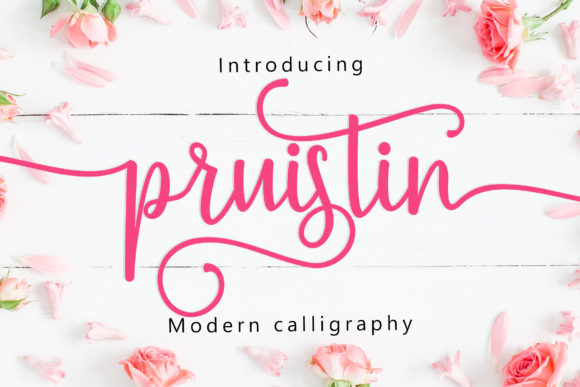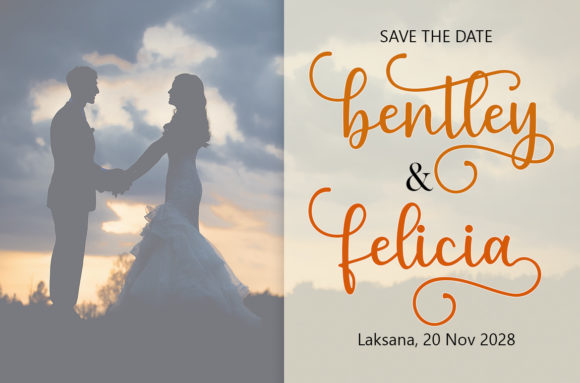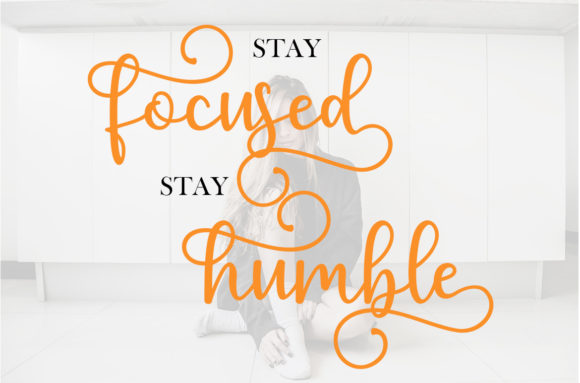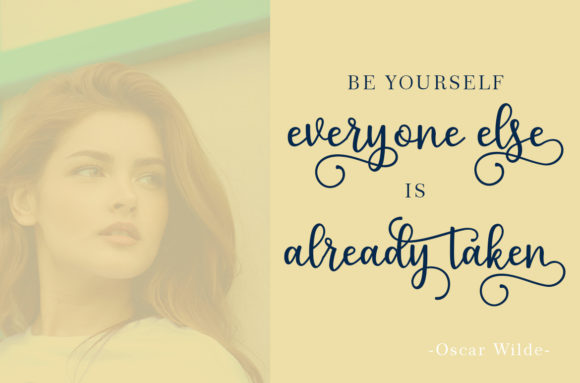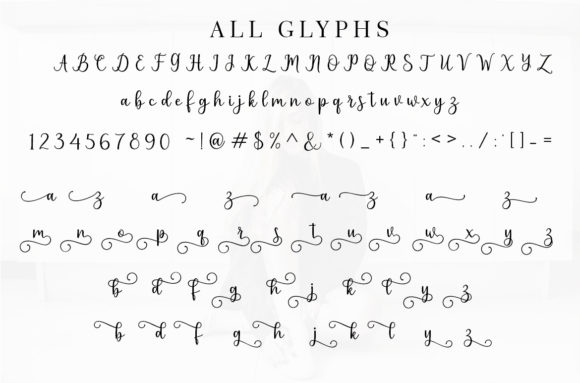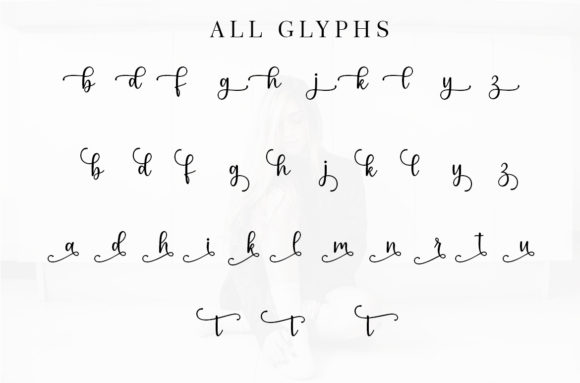
Pruistin Font
About Pruistin Font
Pruistin is a cute and lovely handwritten font with an incredibly lovely feel. It will turn any design idea into a true piece of art!